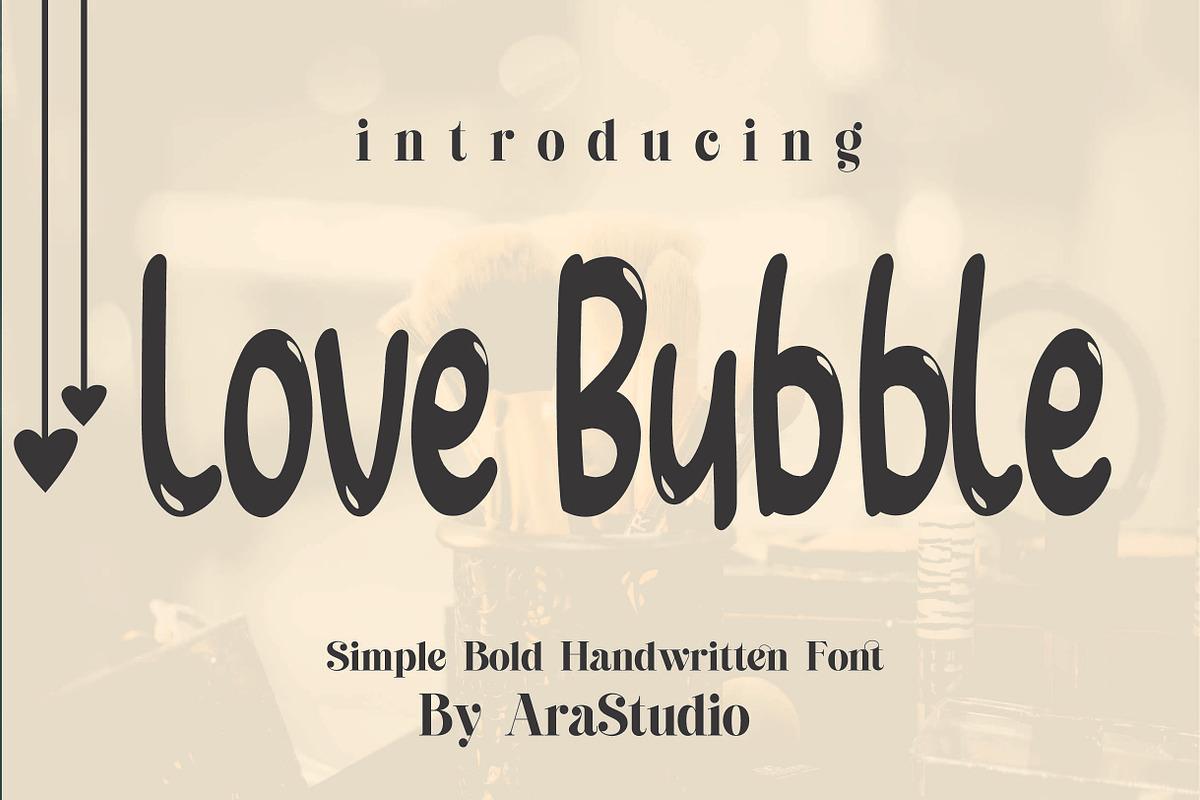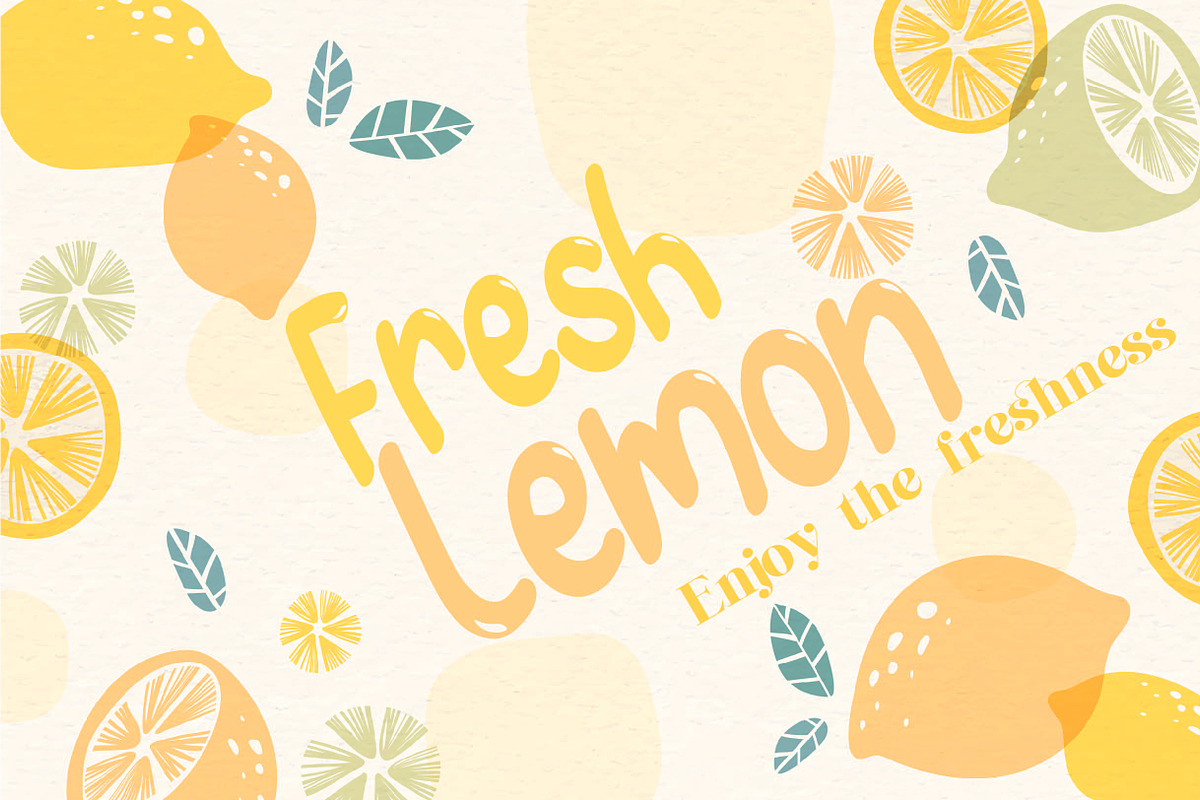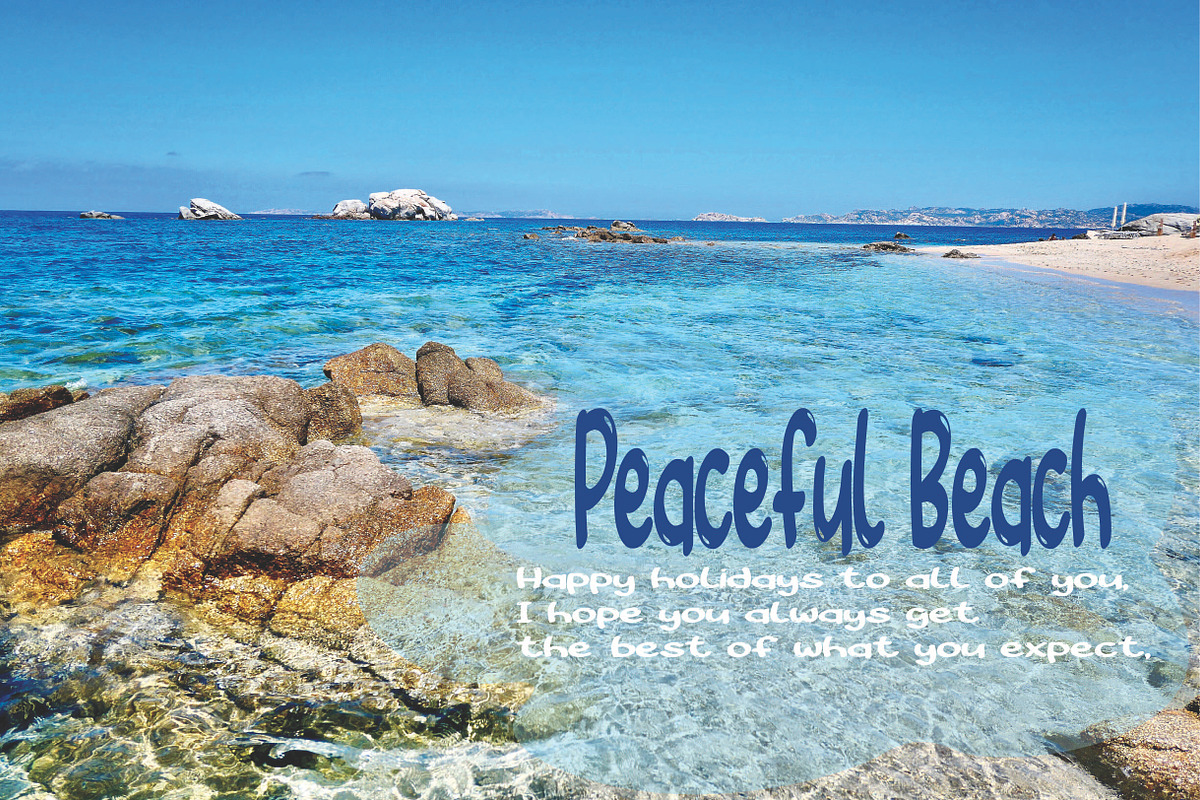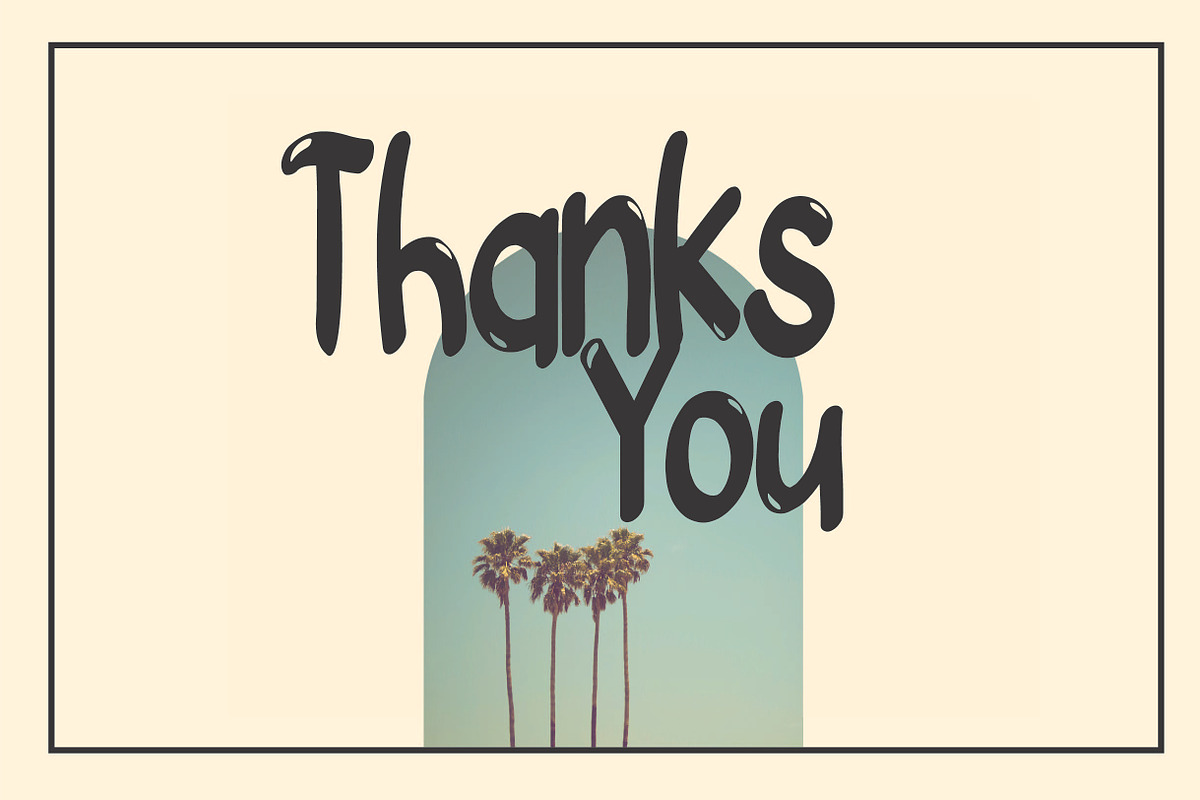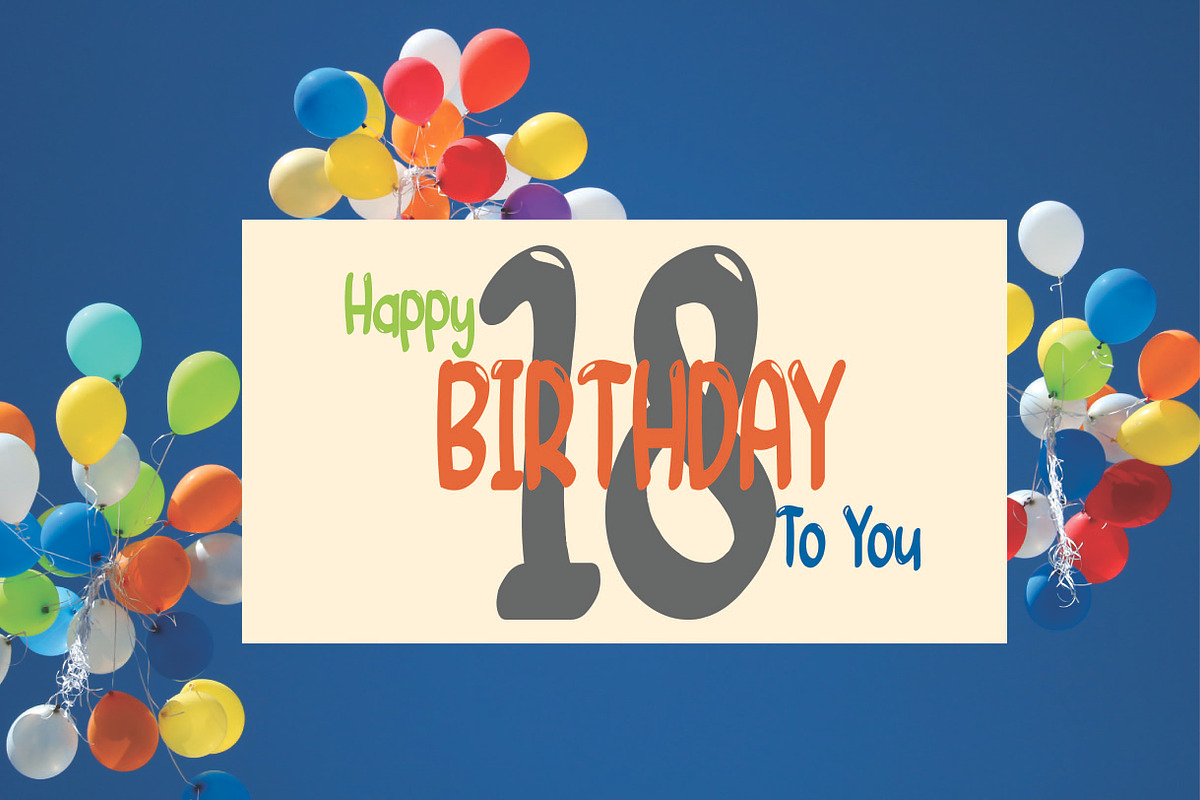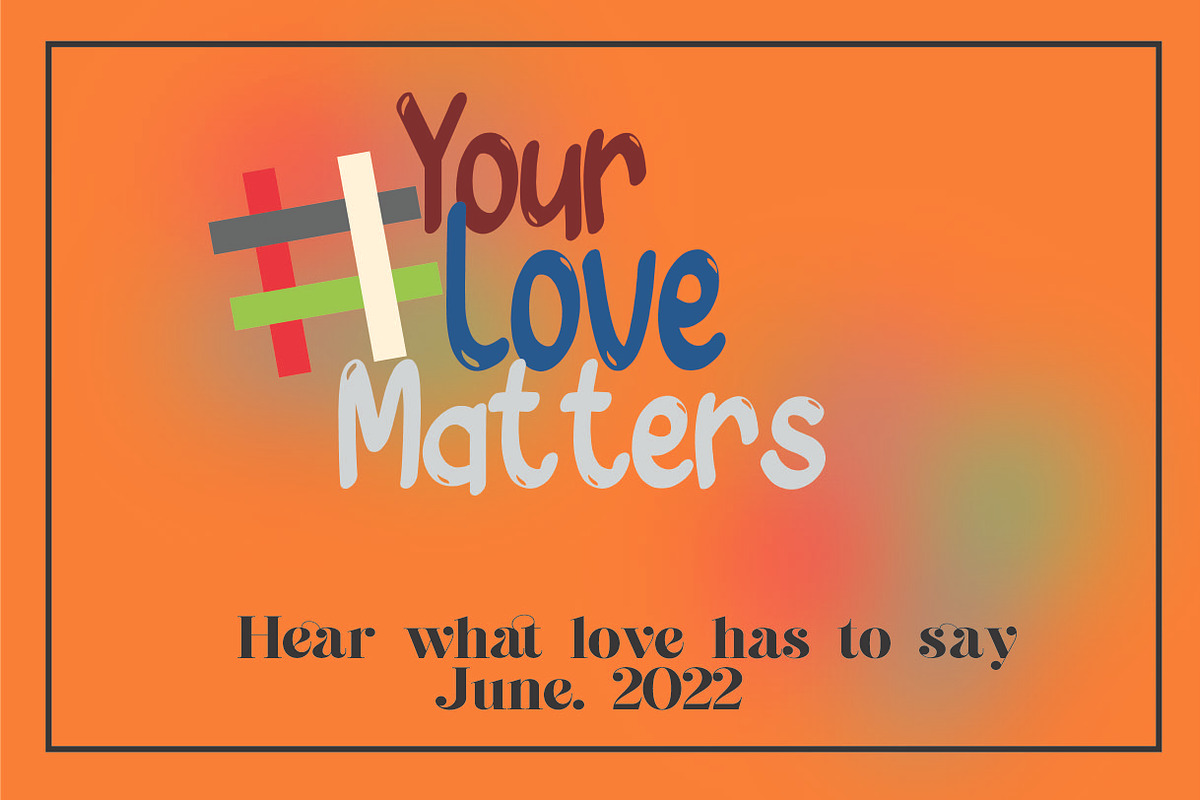
Love Bubble
Love Bubble Font is a handwritten and modern font that combines a sweet touch and beautiful curves in every letter. using a touch of soft body curves so that it is pleasing to the eye Love Bubble Font is great for: Wedding invitations, Birthday invitations, fashion magazines, logos, signatures and is great for watermark photography.